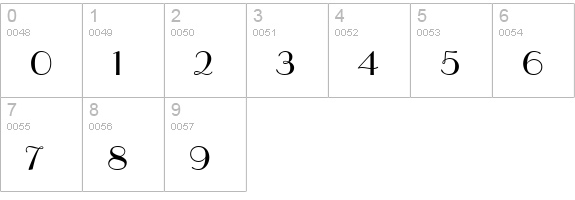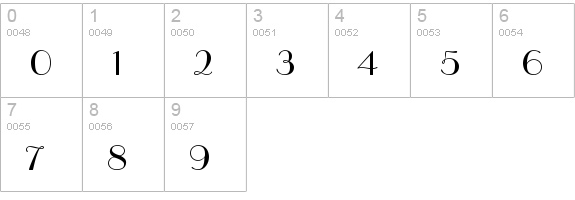
Paragon font is a true gem in the world of typography. With its elegant and sophisticated design, this font is sure to make a lasting impression in any project or design. The carefully crafted letterforms exude a sense of class and professionalism, making it the perfect choice for anything from elegant invitations to corporate branding. But what sets Paragon font apart is not just its stunning aesthetics, but also its accessibility. This font is freely available to download at FontsMarket.com, allowing anyone to enjoy its beauty and versatility without any cost. Whether you are a professional designer looking for a new addition to your font library or a hobbyist searching for the perfect font for your personal projects, Paragon font is a valuable asset that won't break the bank. With its wide range of weights and styles, Paragon font offers endless possibilities for creative expression. From the delicate thin weight for a touch of refinement to the bold and impactful heavy weight for a strong visual statement, this font has the versatility to adapt to any design concept. Its legibility and clarity ensure that your message is communicated effectively, while the subtle details and elegant curves add a touch of sophistication to your creations. Paragon font is a true testament to the power of design and the beauty of free resources. With its exceptional quality and no cost attached, it has become a favorite among designers and creatives worldwide. Embrace the elegance and versatility of Paragon font and elevate your designs to new heights. Download it now, free of charge, at FontsMarket.com.